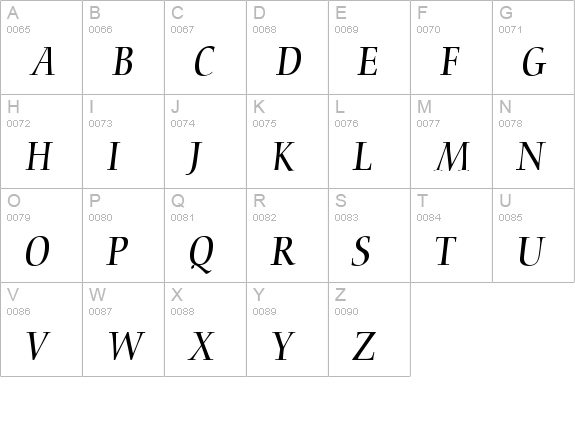
Nofret BQ Italic Font Details
Nofret BQ Italic is a distinctive, italic variant in the Nofret typeface family \xE2\x80\x94 well suited to design and typography projects.
Nofret BQ Italic font is a stunning and elegant typeface that exudes sophistication and charm. Its sleek and flowing italic design adds a touch of style to any project, making it perfect for both digital and print applications. The slender and graceful letterforms of Nofret BQ Italic font create a sense of movement and fluidity, capturing the eye of the viewer effortlessly. This font is not only visually appealing, but also highly versatile, suitable for a wide range of design projects including branding, packaging, editorial design, and more. Whether you're looking to add a touch of class to your next project or create a standout headline, Nofret BQ Italic font is sure to impress. What's even better is that Nofret BQ Italic font is available for free download at FontsMarket.com. This means you can access this exquisite typeface without any cost, making it a valuable addition to your font collection. Don't miss out on the opportunity to elevate your designs with the beauty and elegance of Nofret BQ Italic font. Download it today and see the difference it can make in your creative projects.